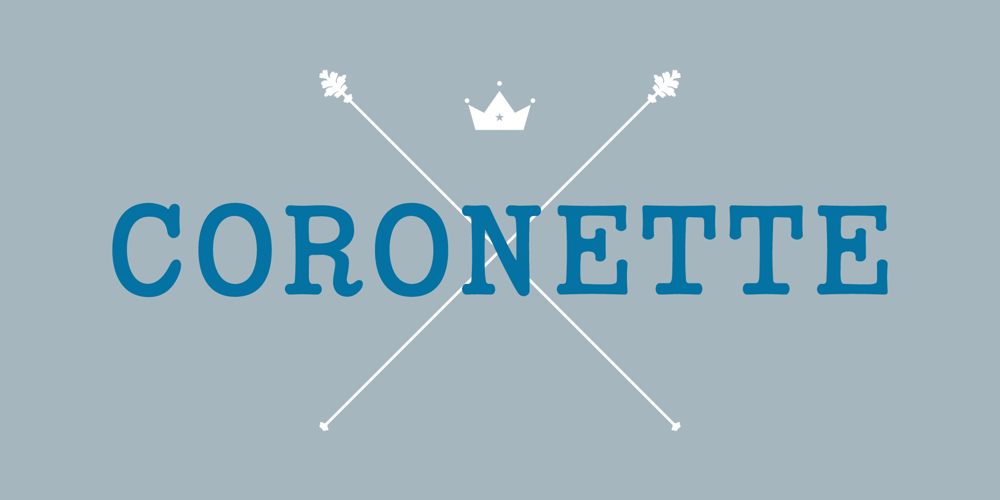
Coronette Font Family was designed by Chank Diesel and published by Chank. Coronette contains 1 styles and family package options. The exciting new typewriter font, Coronette, combines old-fashioned charm with modern typographic sensibilities. Originally commissioned as a custom font for Magnetic Poetry, this clean, medium-weight typewriter font is now available to the general font-lovin’ public. Enjoy a new, multi-purpose workhorse font for all your labeling and page layout needs.